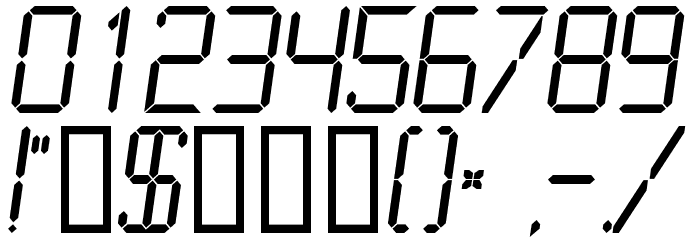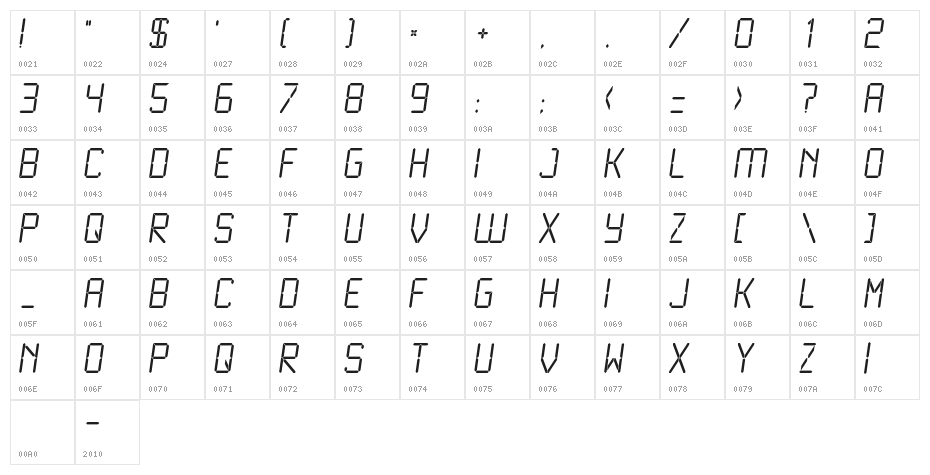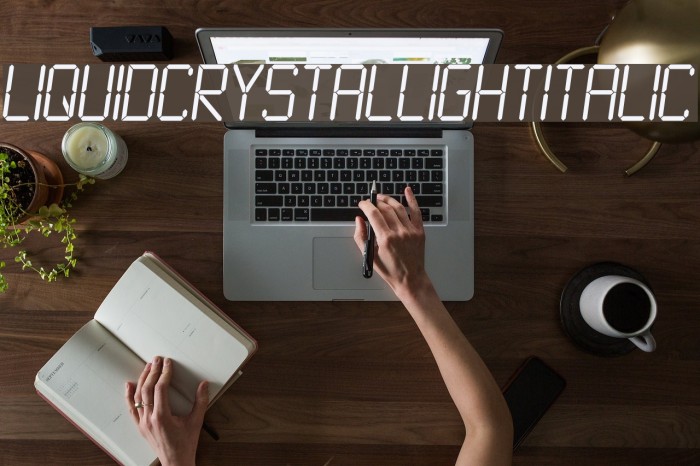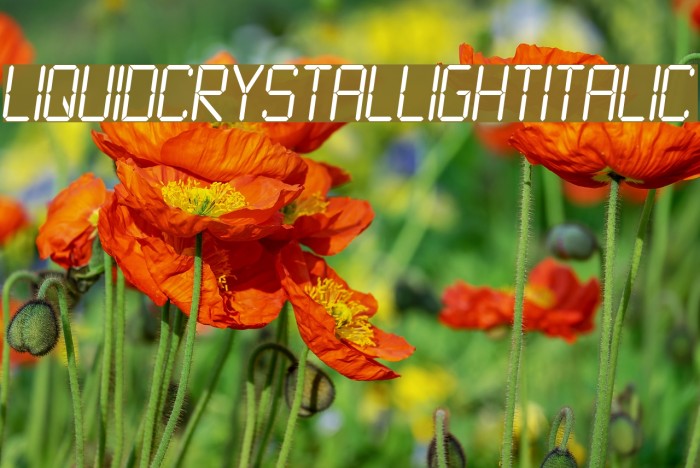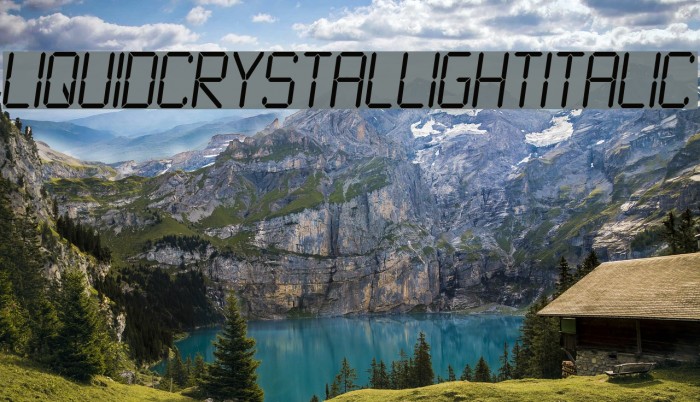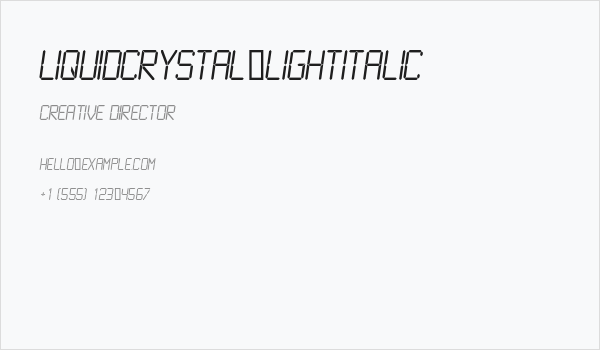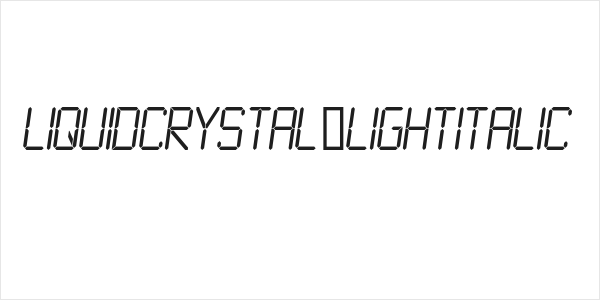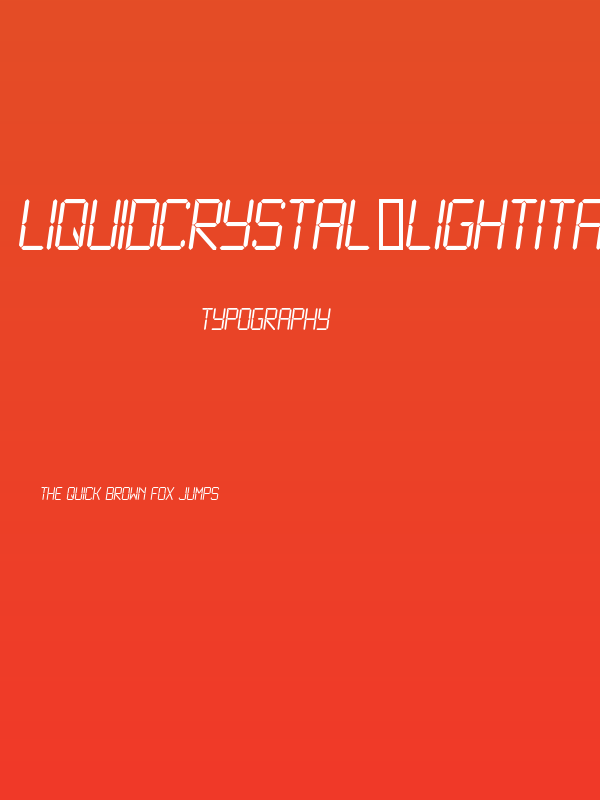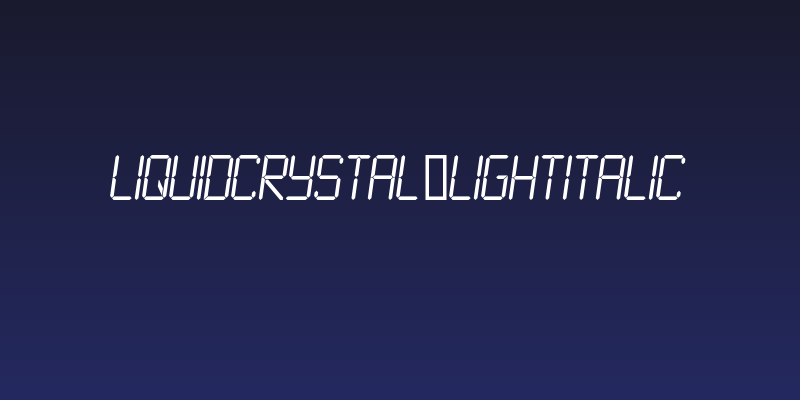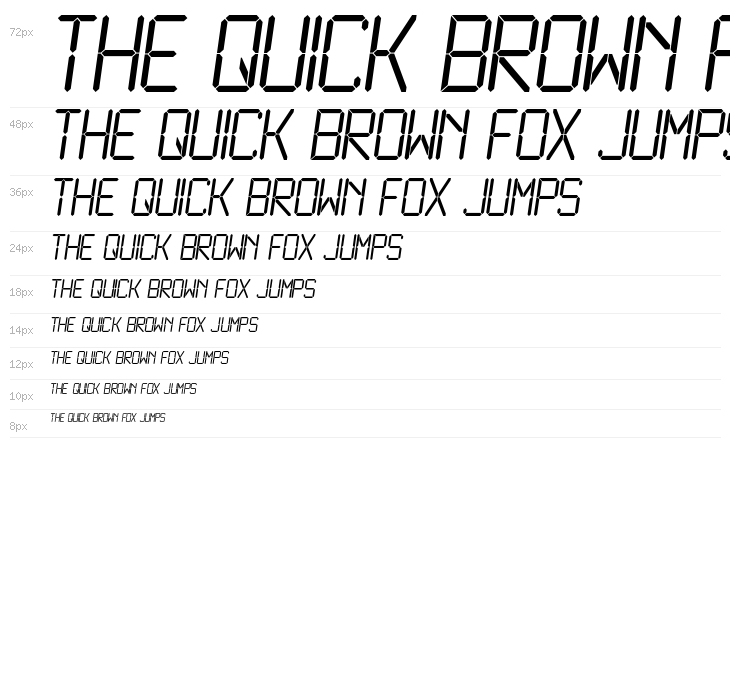
LiquidCrystal-LightItalic Font
LiquidCrystal-LightItalic Description
This font features a distinctive, futuristic design reminiscent of digital displays or LCD screens. The characters are composed of segmented lines, creating a geometric and angular appearance. The font maintains a consistent stroke width throughout, contributing to its modern and technological feel. The italic style adds a dynamic slant to the characters, enhancing the sense of movement and speed. This font is particularly effective for conveying a sense of innovation and cutting-edge technology.
| Proposed Projects | Ideal for digital interfaces, tech branding, futuristic posters, and sci-fi themed projects. |